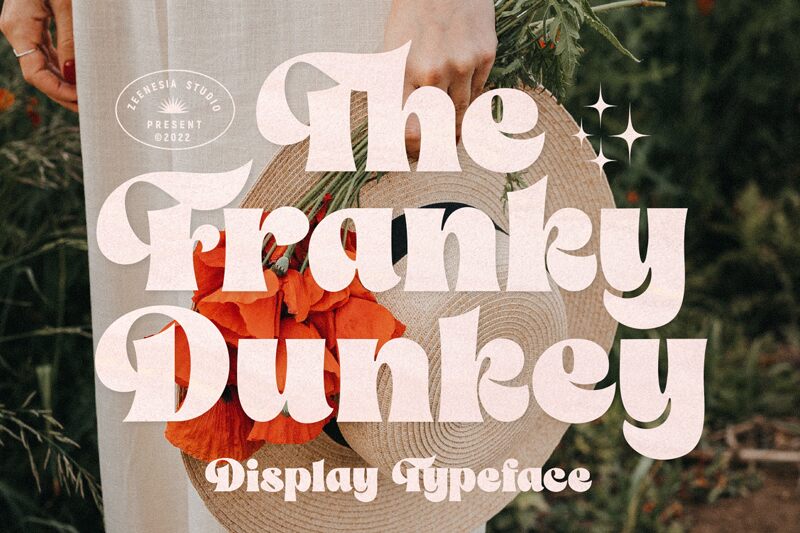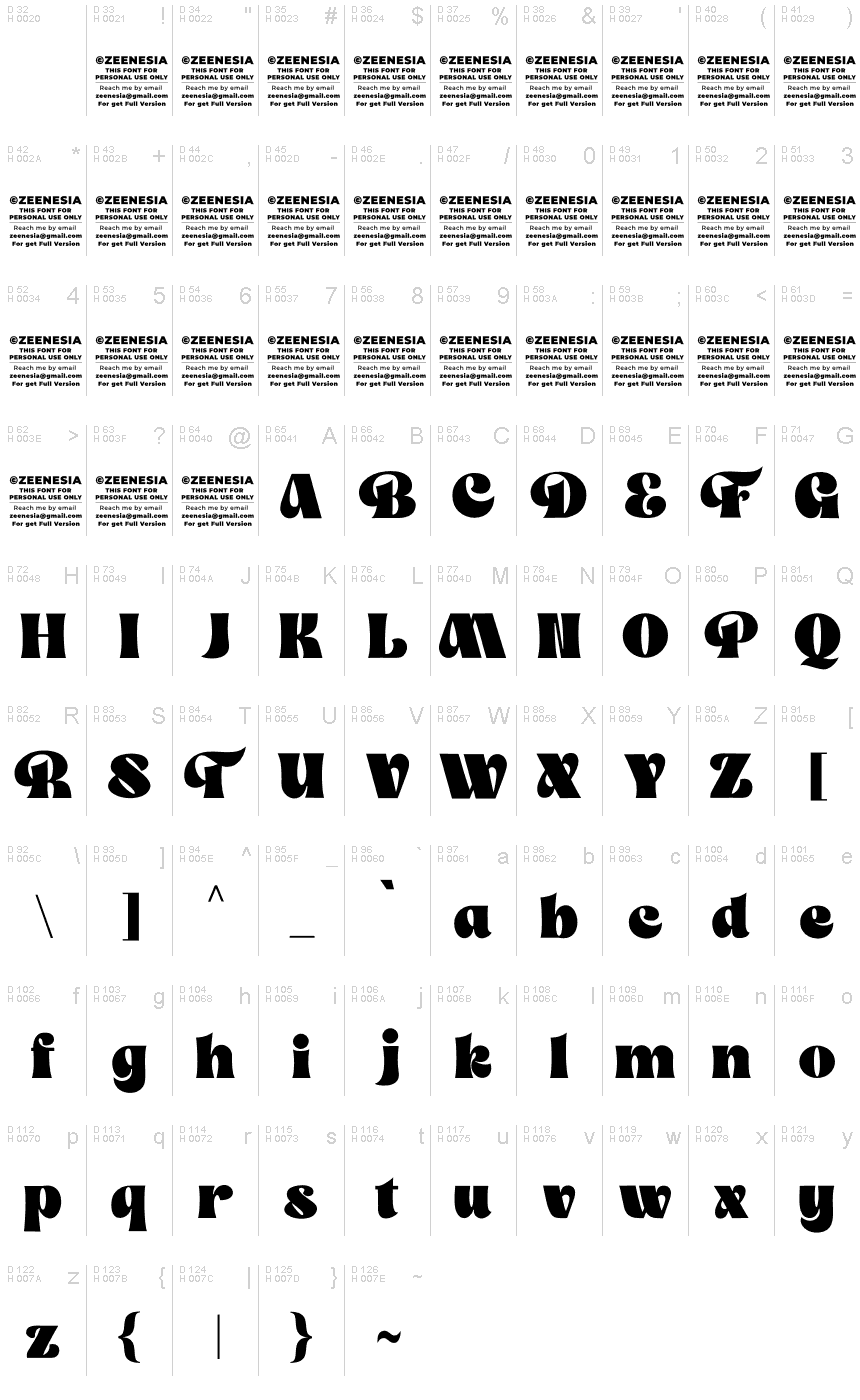
The Franky Dunkey, designed by Zeenesia Studio, is a captivating display font that exudes a nostalgic charm. With its retro serif style and extra-bold weight, it commands attention and adds a touch of vintage elegance to any project.
The semi-expanded width enhances legibility while maintaining a unique character. Perfect for branding, advertising, and packaging design, this versatile font suits diverse projects such as boutique fashion labels, artisanal coffee shops, or even retro-inspired video game titles.
Let The Franky Dunkey transport your audience to the golden age of design with its timeless appeal.